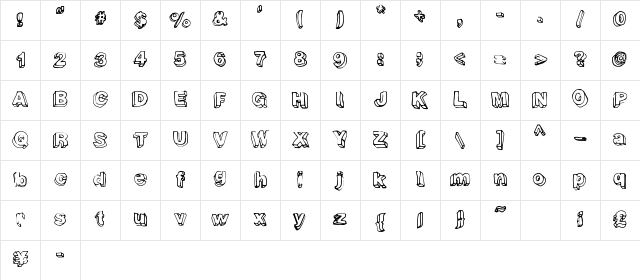
FourthDimension Regular Free Font
FourthDimension Regular
Foundry: Xerographer Fonts
Designer: Max Infeld
Design Context for FourthDimension
FourthDimension is a composed and adaptable typeface that performs quietly and consistently across a wide range of design contexts.